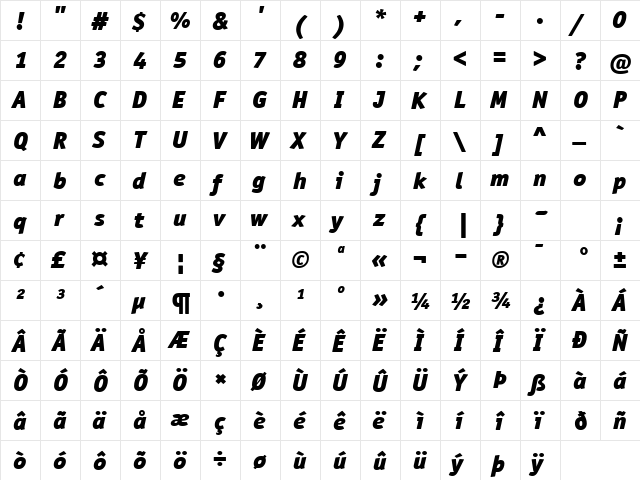
OfficinaSanBlkITC BlackItalic
BlackItalic · International Typeface Corporation Erik Spiekermann/Ole Schaefer ·
DesignerErik Spiekermann/Ole Schaefer
Design Context for OfficinaSanBlkITC Typeface
OfficinaSanBlkITC offers clean, dependable letterforms without strong stylistic allegiance, making it a practical choice for designers who need flexibility. Its italic angle brings a sense of urgency and motion to the letterforms.